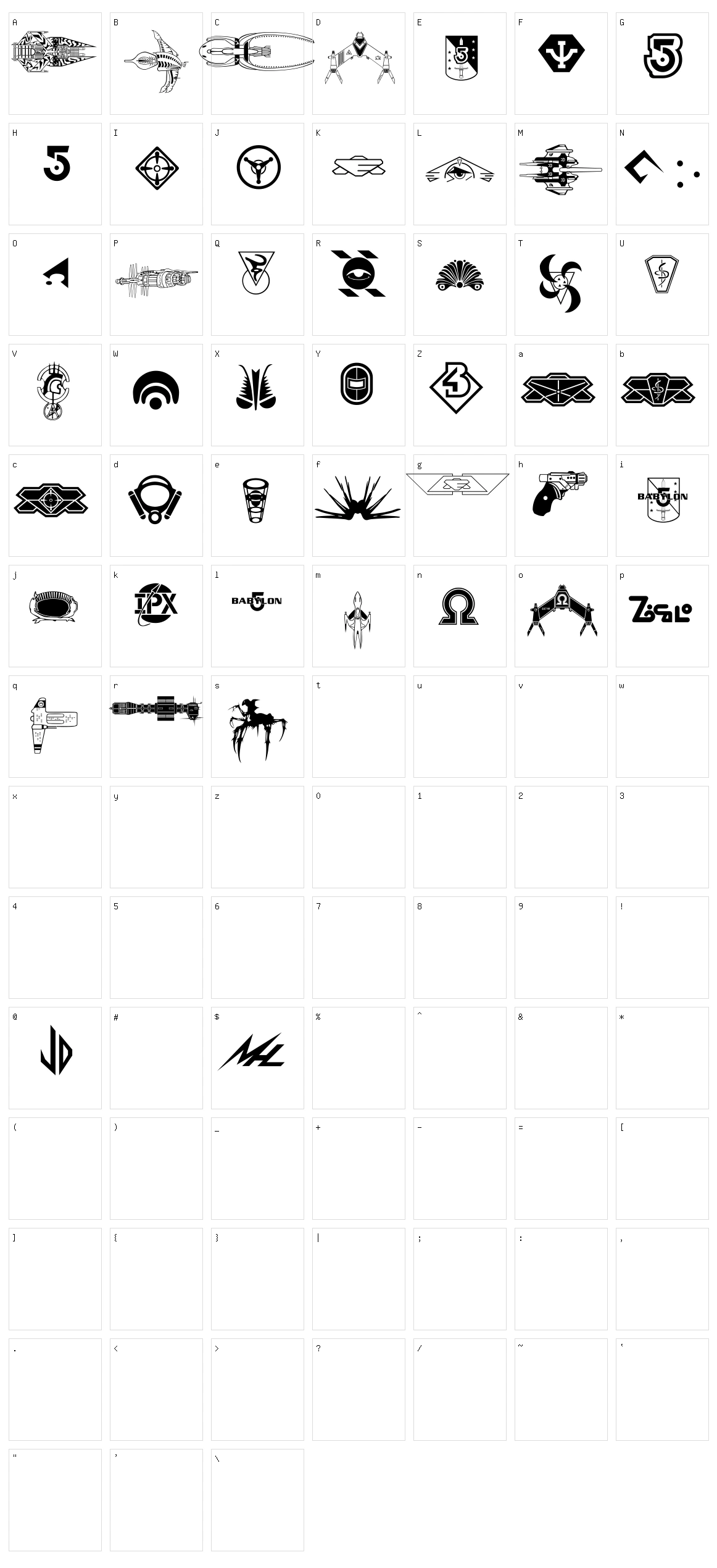
I'm still working on the B5 Symbols when I
can. I plan on adding more in the future.
These symbols were created by Michael Lee:
A = Narn Ship
B = Minbari Ship
C = Vorlon Ship
D = Starfury
E = B5 Shield
F = Psi Corp
G = B5's 5
H = B5's 5
I = B5 Security
J = Symbol seen in Med Lab
K = Earth Alliance
L = Nightwatch
M = Centauri Ship
N = Narn symbol
O = Vorlon letter
P = Babylon 5
Q = Minbari symbol
R = B4 Security
S = Centauri Royal symbol
T = Star Riders Clan (Minbari)
U = Medical symbol
V = Agamemnon ship symbol
W = Vorlon Empire symbol
X = Narn Regime symbol
d = Breather mask symbol
e = Elevator (lift) symbol
f = Shadow Ship
h = PPG (Phased Plasma Gun)
i = New B5 Shield
j = Ranger symbol
k = IPX symbol
l = Babylon 5
m = White Star
n = Black Omega Squad (symbol)
o = Black Omega Squad fighter
p = Zocalo
q = Brakiri Ship
r = Earthforce Ship
s = Shadow Creature
These symbols were created by Keith Nelson:
Y = Maintenance patch
Z = Babylon 4 Symbol
a = Earth Force patch
b = Earth Force medical patch
c = Earth Force Security patch
g = Earth Alliance